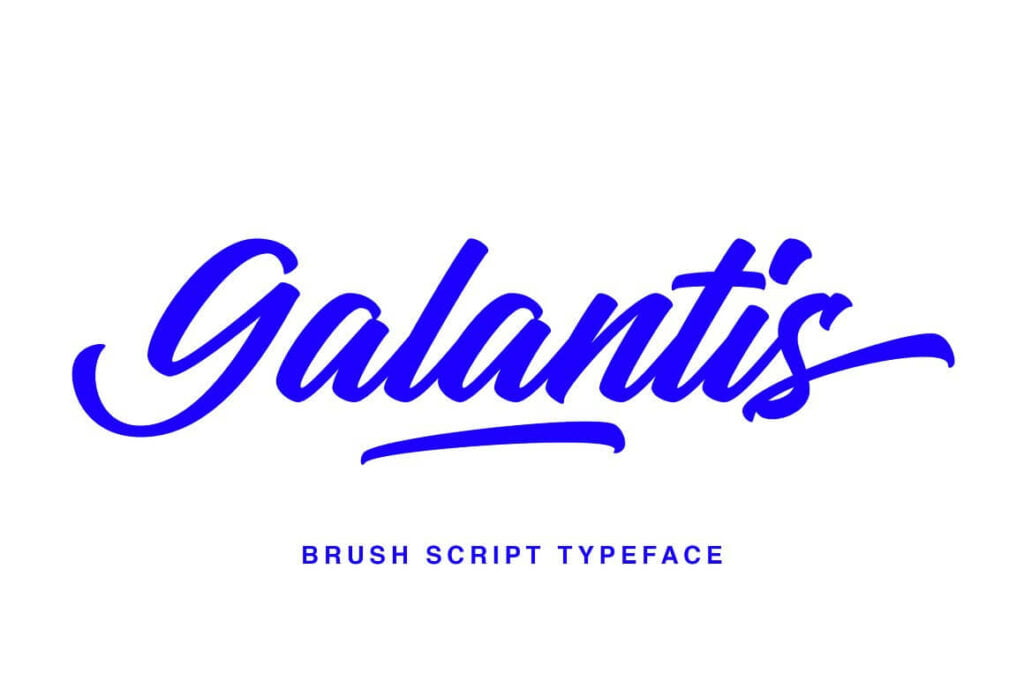
Galanti Brush Script Font
Galantis is a collective modern handlettering. Come with 3 families with uppercase and lowercase, stylistic set, alternates, multilingual, etc to mix and match your design.
This font is perfect for your design, logo, label, badges, apparel design, etc. I also made a design to mix and match pairs of letters to fit your design.